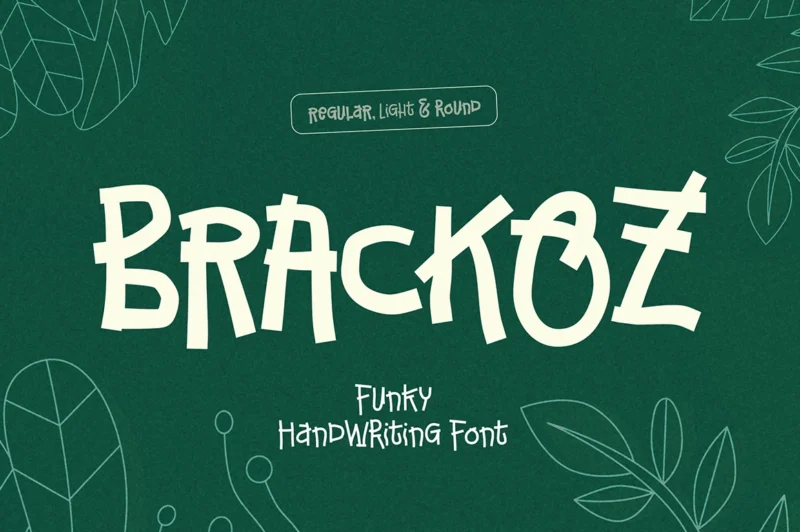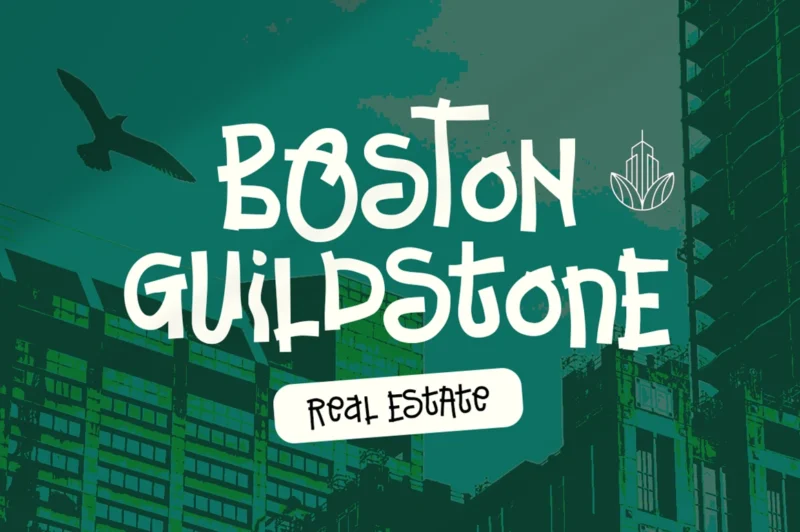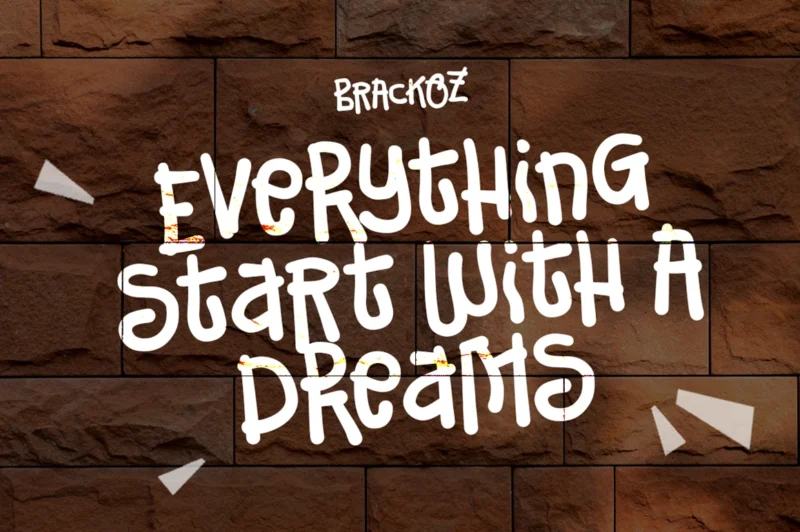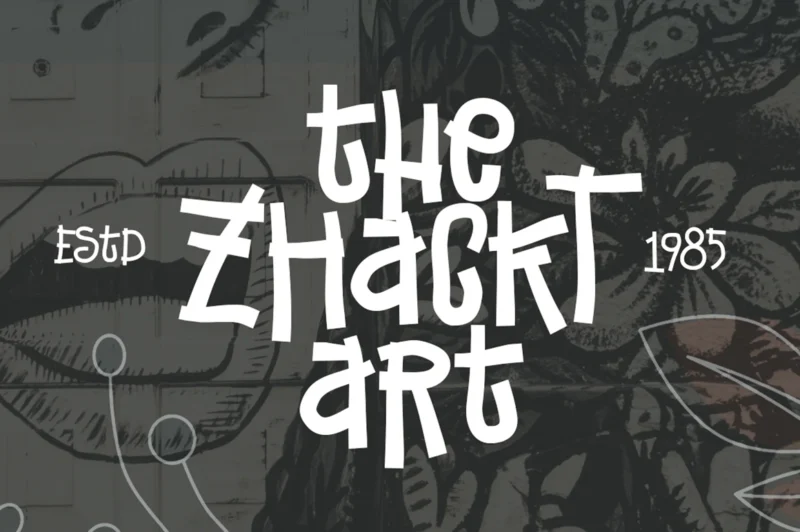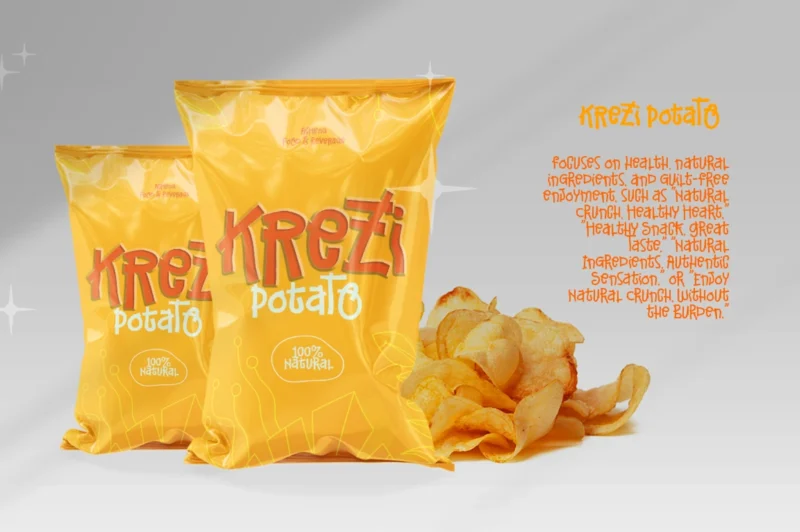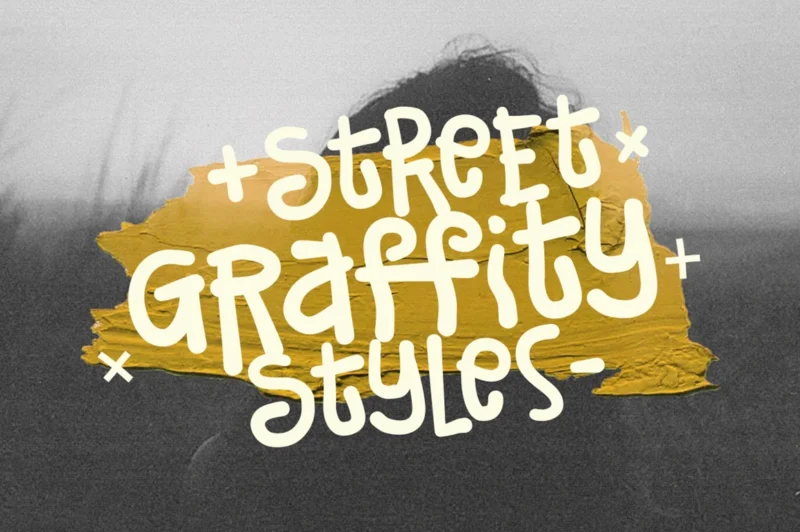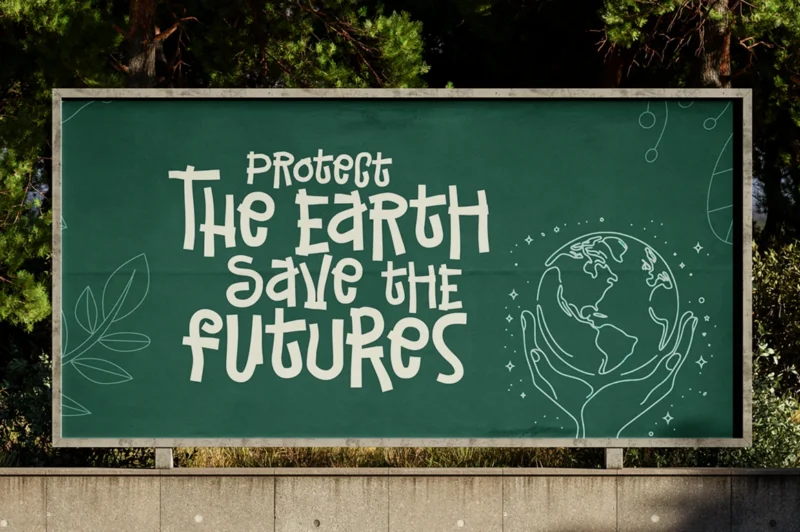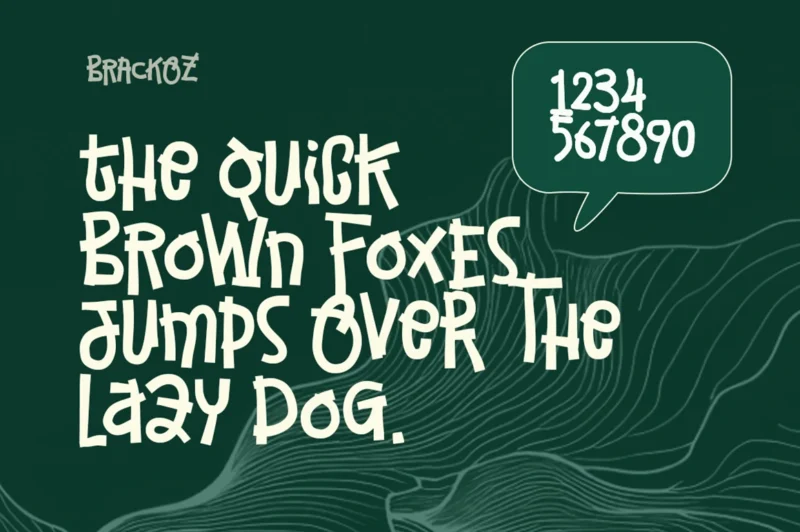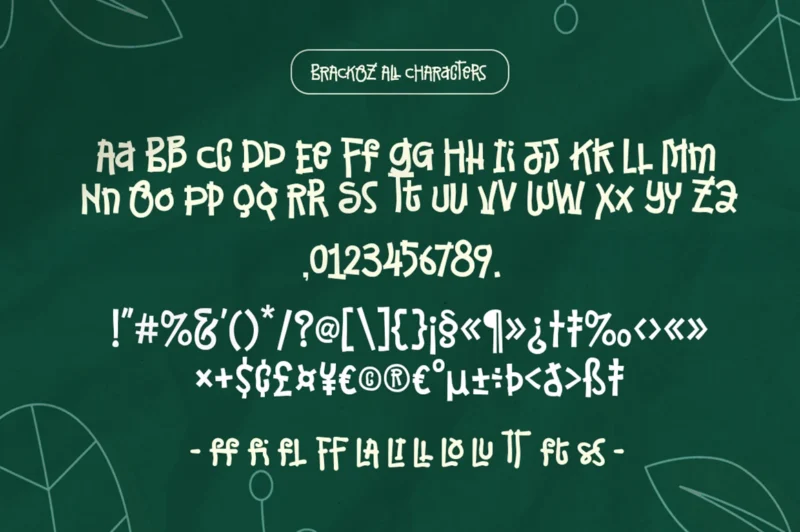
Brackoz is a unique Handwritten display font with a funky, modern character that instantly stands out. Designed to be bold and expressive, Brackoz brings a playful yet contemporary feel to any design. It comes in three versatile styles—Regular, Light, and Round—allowing designers to explore different moods while keeping a consistent visual identity. Perfect for headers, logos, and eye-catching display purposes, Brackoz is an excellent choice for projects that need a strong, modern, and creative presence.
- Funky Handwritten Font
- Uppercase & Lowercase
- Expressive Ligatures
- Basic Latin Glyphs
- Modern and Unique
- Numeral and Punctuation
- Currencies
- Multilingual Support